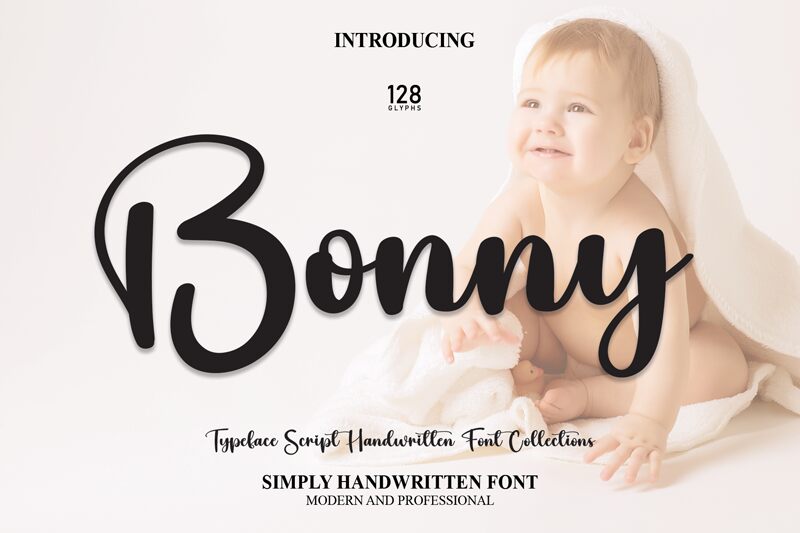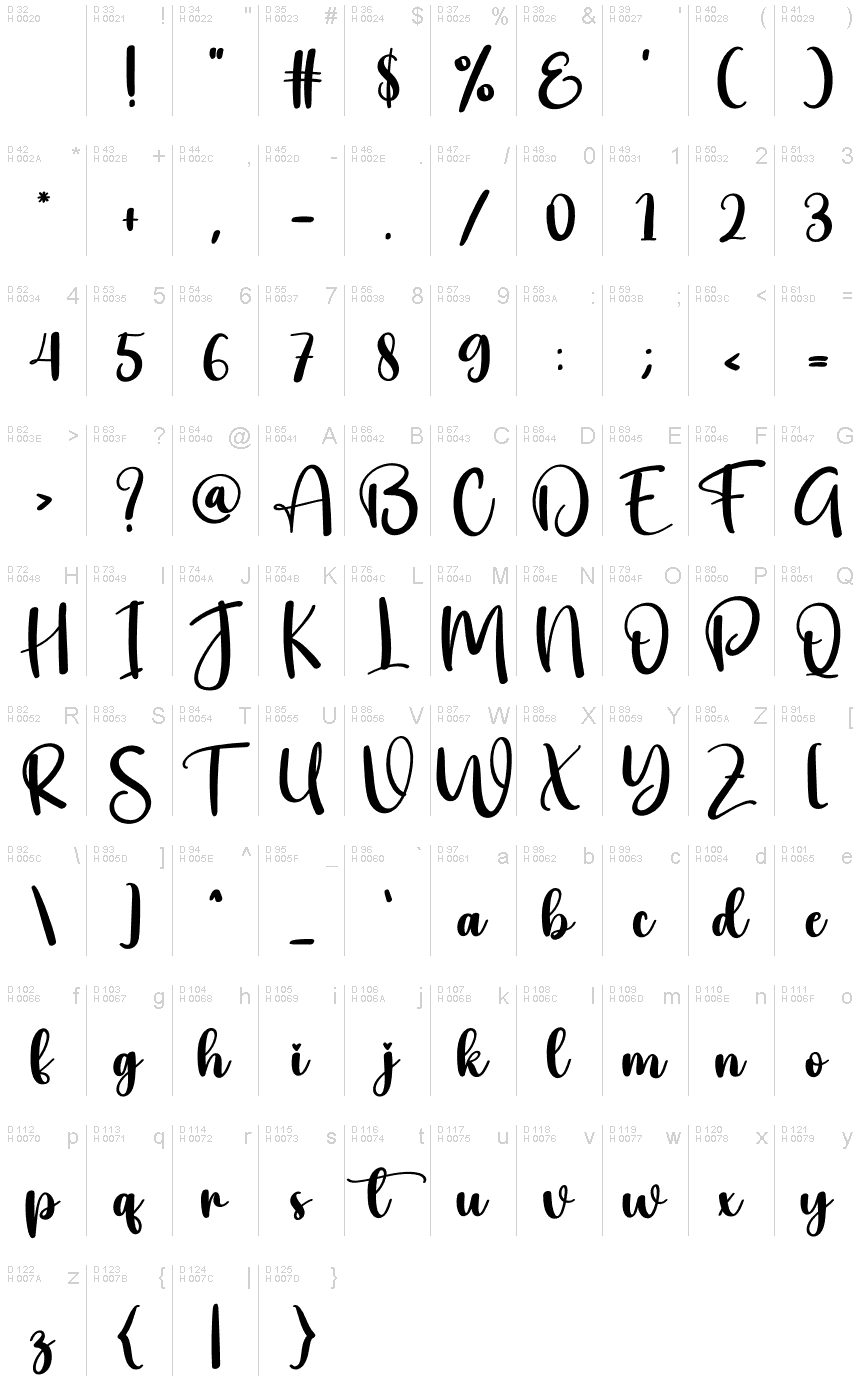
Bonny
Bonny, a delightful semi-bold font by Scratchones, exudes charm with its lovely handwritten style. This versatile typeface is perfect for adding a touch of whimsy to various projects.
Its playful yet polished look makes it an ideal choice for wedding invitations, greeting cards, and personal stationery. Bonny's semi-bold weight lends itself well to headlines and titles, creating eye-catching designs for posters, brochures, and book covers.
Whether you're designing a cozy café menu or crafting an elegant logo for a boutique brand, Bonny will infuse your creations with warmth and character.